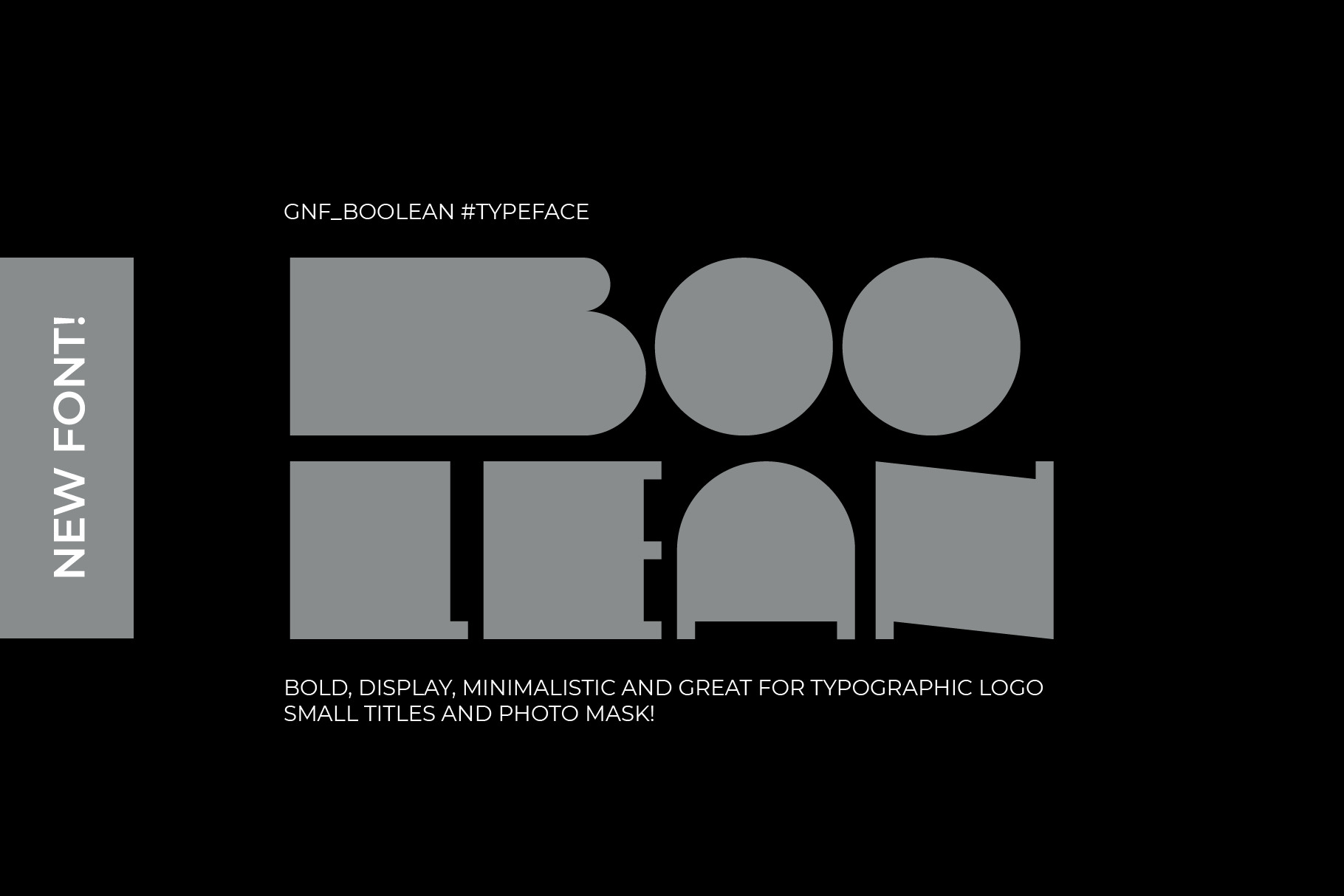
GNF_BOOLEAN BOLD DISPLAY FONT
Bold, display typeface of capital letters with double width alternates, english and greek, numbers, and some basic special characters.